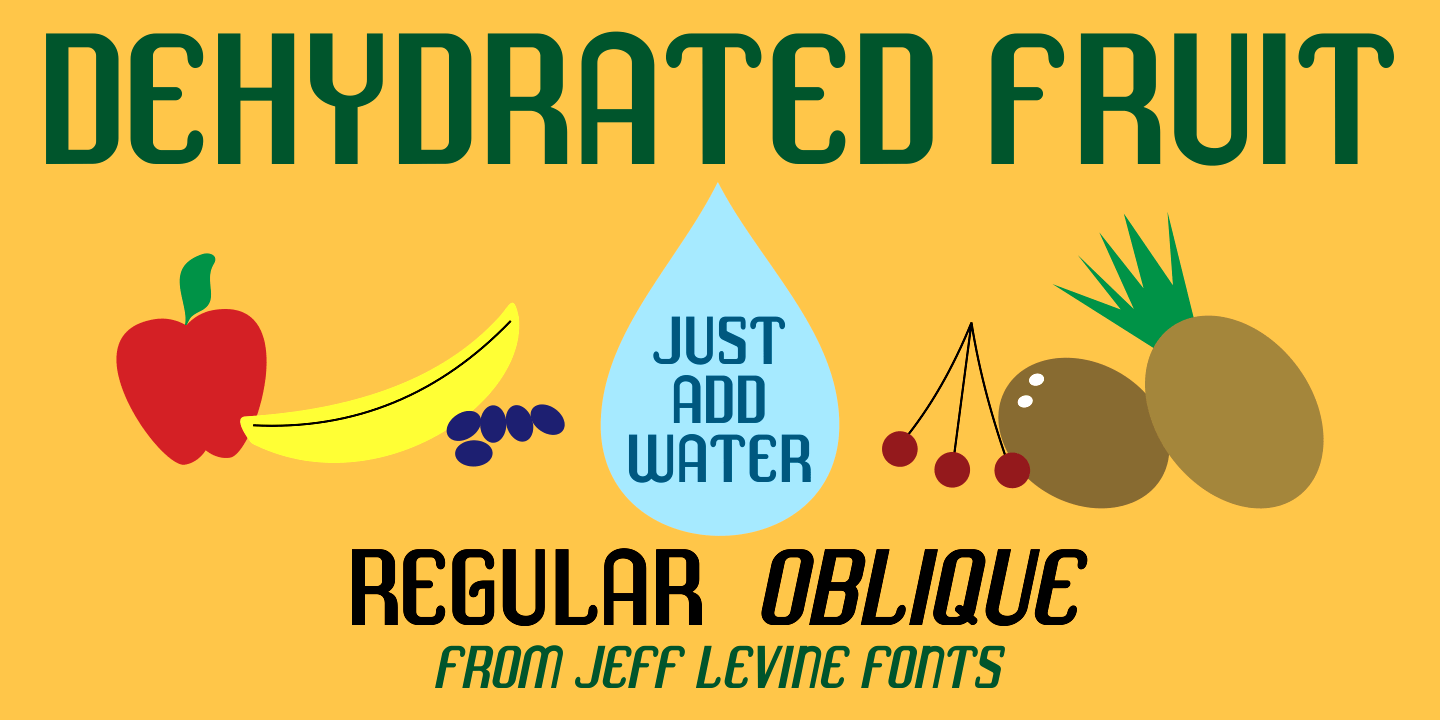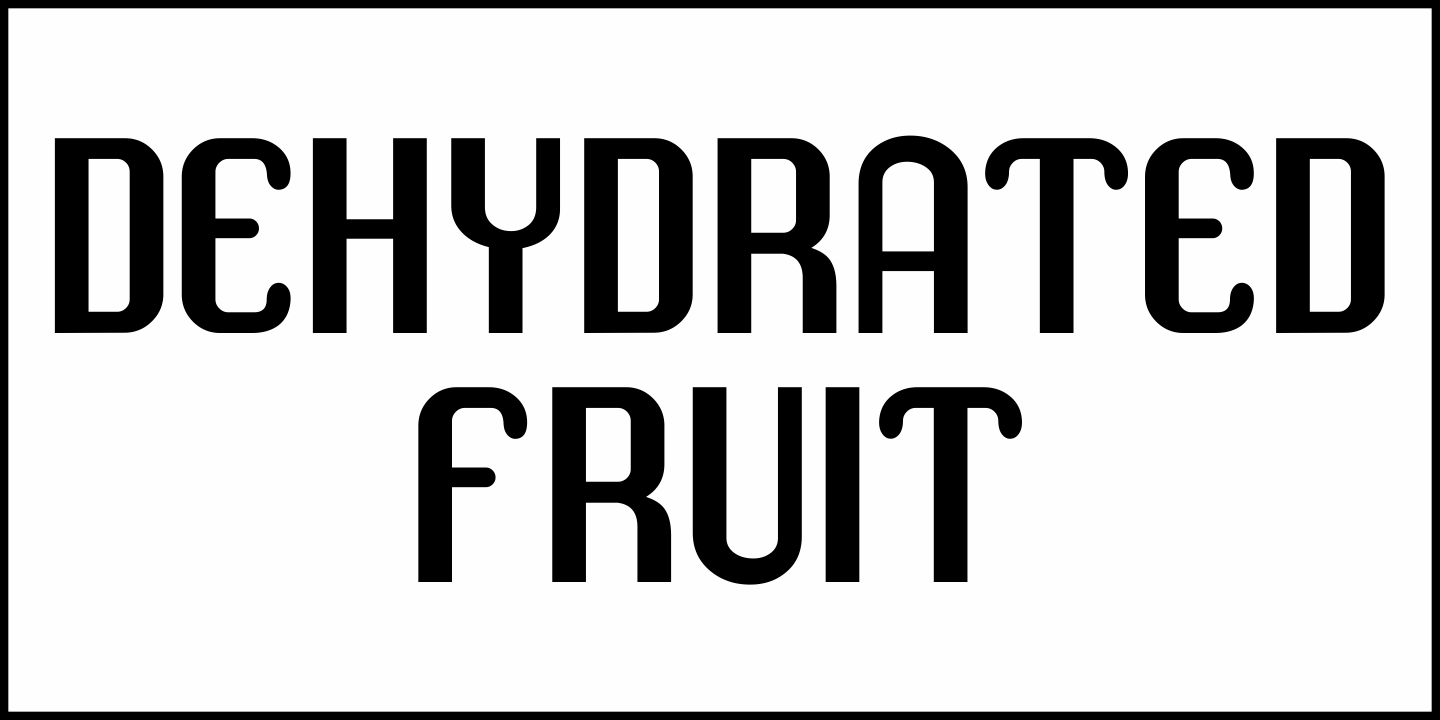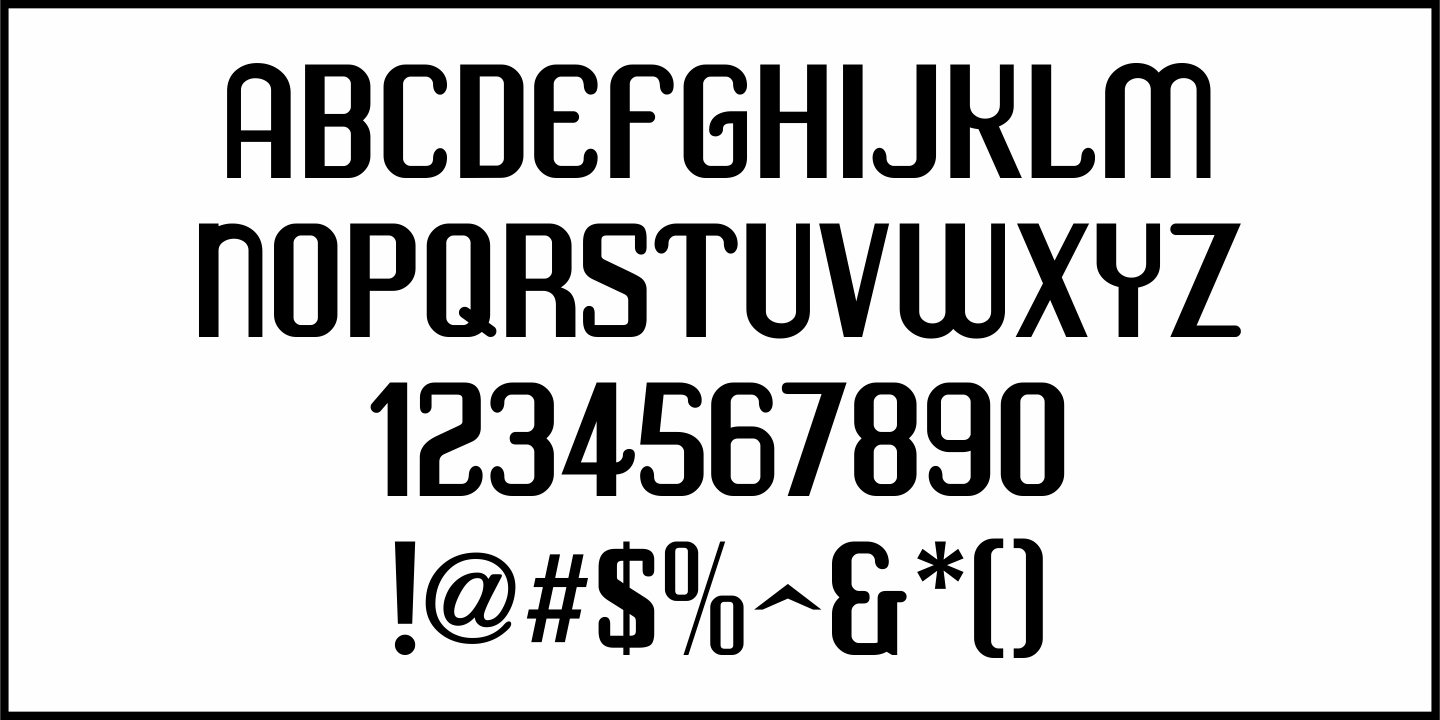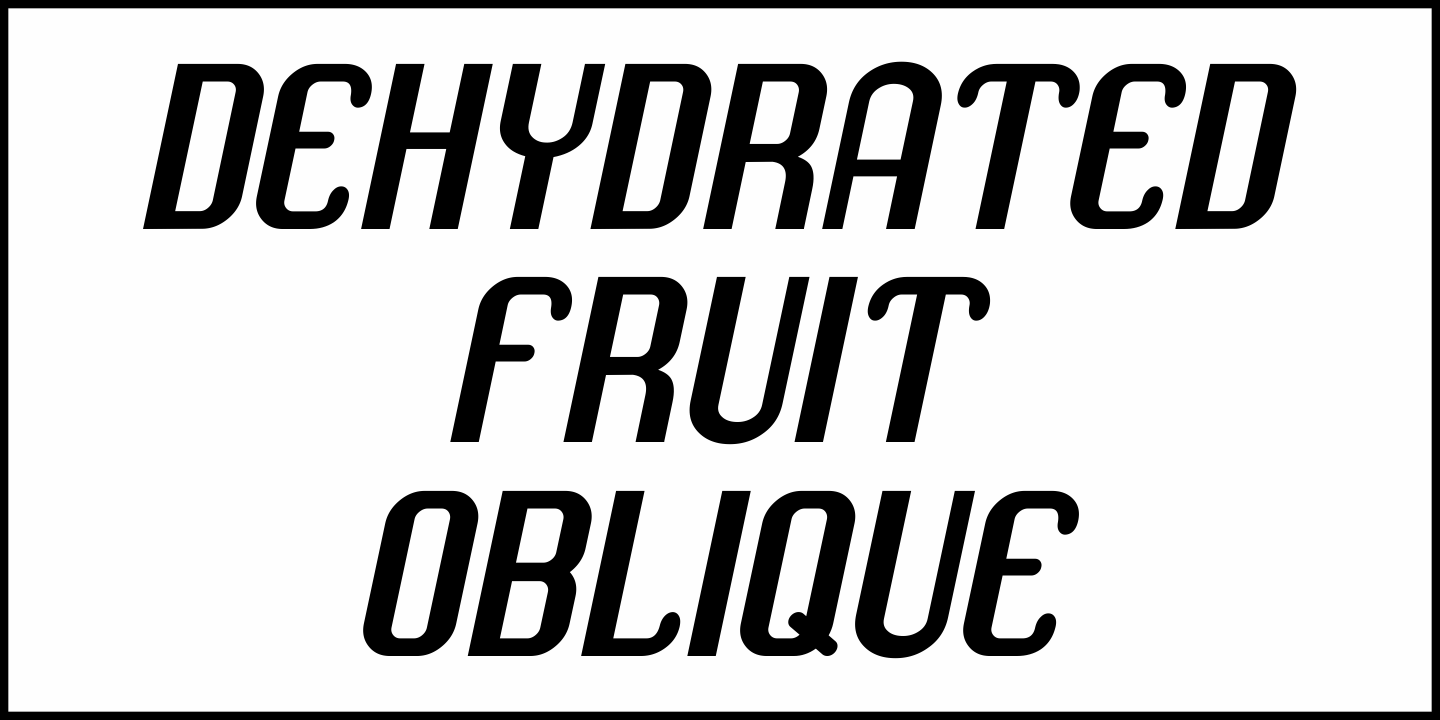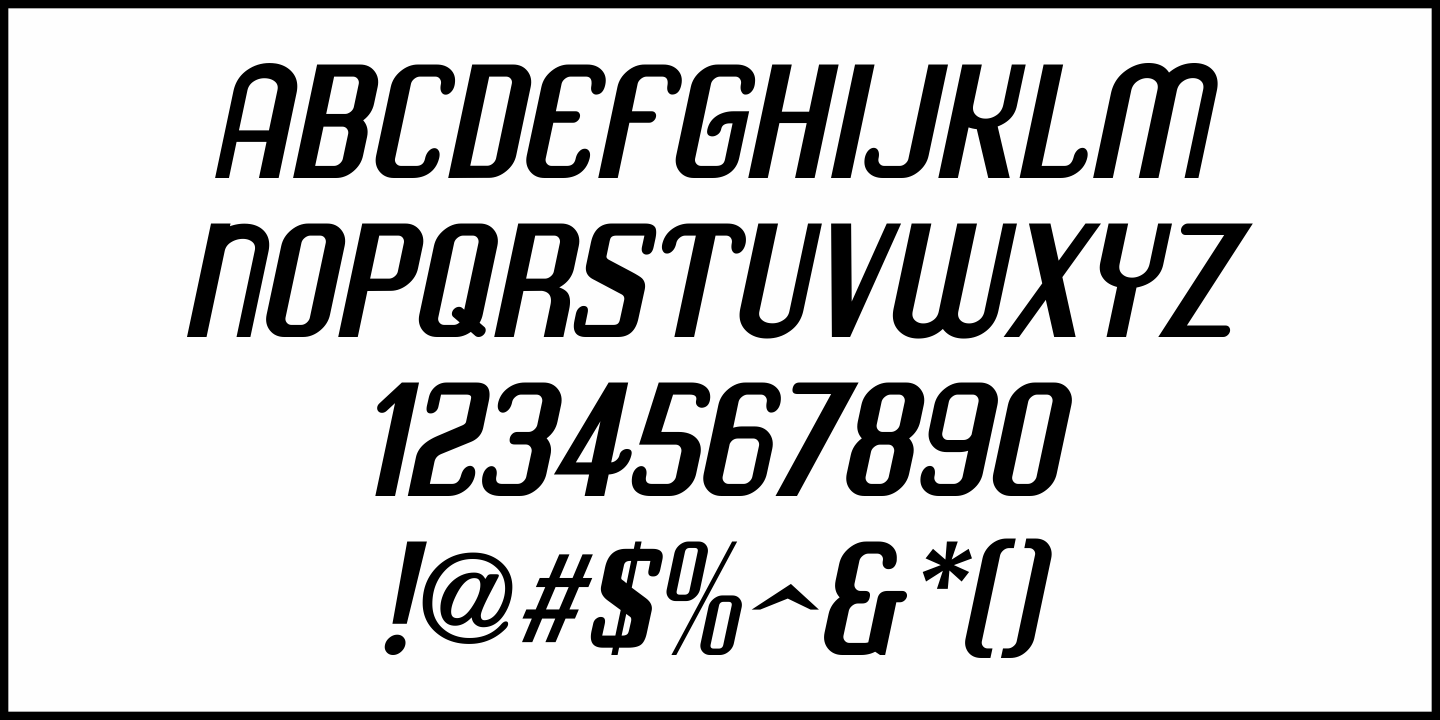
Dehydrated Fruit
Buy NowHand lettering on the Southern Choice Dehydrated Apples label [circa 1940s] inspired Dehydrated Fruit JNL, which is available in both regular and oblique versions.
The characters are an interesting mix of sans serif, semi serif, Art Deco and condensed letterforms - somewhat of a novelty typeface.